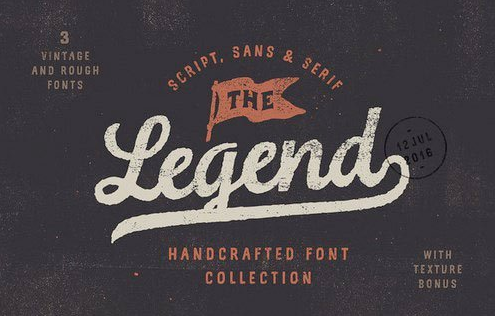
Say hello to creativity with The Legend Font Trio + Texture Bonus! 🎉 This delightful digital download brings instant access to a versatile font bundle that’s perfect for graphic designers, digital artists, and anyone looking to add a touch of vintage charm to their projects. With this collection, you’ll receive three stunningly crafted fonts along with exclusive texture files that make it a breeze to infuse a handcrafted aesthetic into your branding, logos, posters, and social media graphics.
The Legend Font Trio offers an incredible blend of style and functionality. Each font is designed to complement the others, ensuring you have everything you need to create eye-catching designs that stand out. Whether you’re aiming for a rustic vibe or a modern twist, this trio has got you covered! 🌟
- Three unique, complementary fonts: Designed for maximum versatility, perfect for any project.
- Bonus texture files: Elevate your typography with beautiful textures that enhance the overall look and feel.
- Vintage, rustic aesthetic: Ideal for creating designs that exude warmth and authenticity.
- Multiple font styles: Includes script, serif, and decorative options to suit your creative needs.
- The Legend Serif Font
- The Legend Script Font
- The Legend Decorative Font
This font trio is an excellent choice for:
- Graphic designers looking to add unique typography to their work.
- Digital artists who want to create stunning visuals with a vintage flair.
- Anyone crafting logos, packaging, invitations, or digital content that needs a touch of elegance and authenticity.
Let your creativity flow with The Legend Font Trio and watch your designs come to life! 🌈